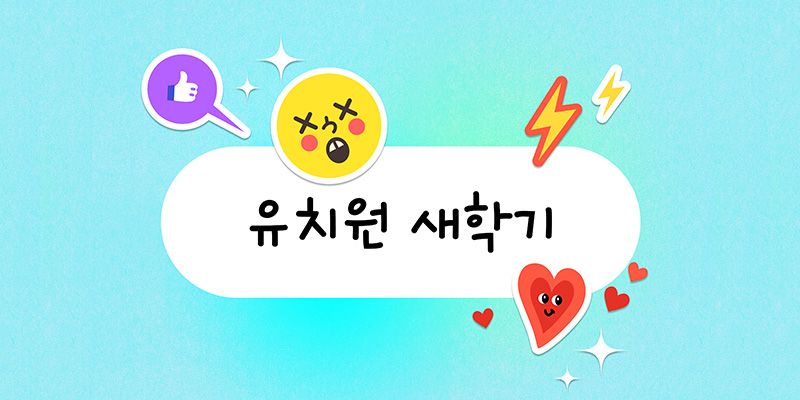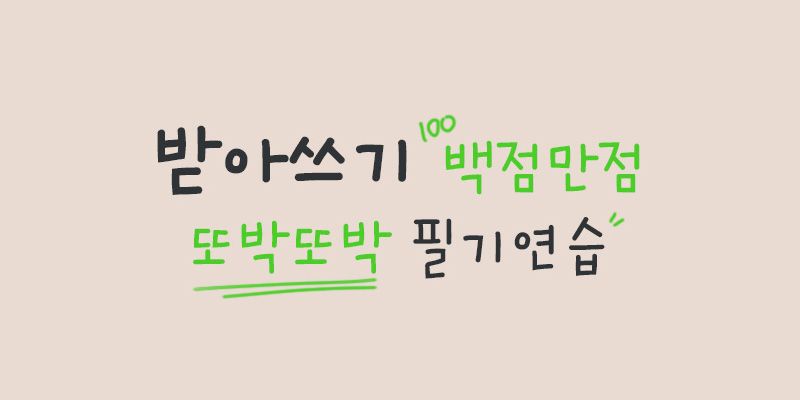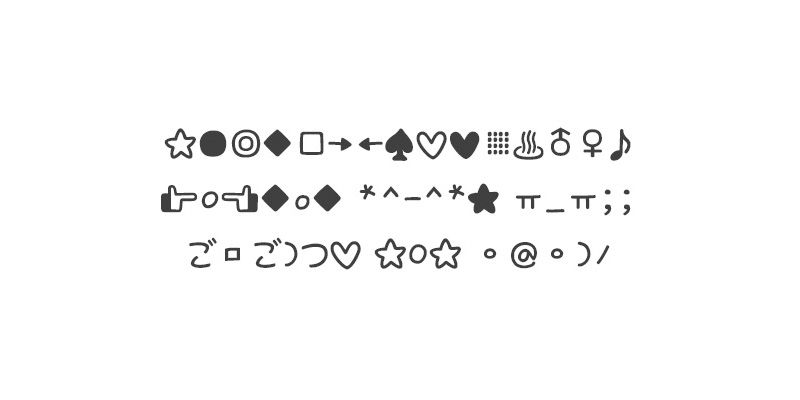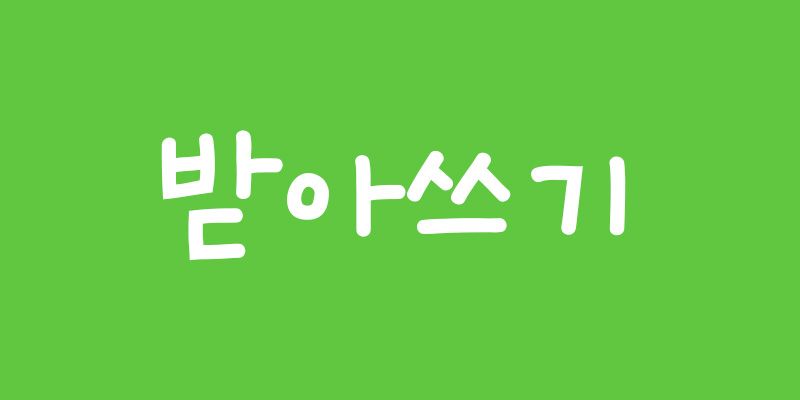
RixDictation is featured with the straight and clear handwritings of schoolchild. It brings up the cute image of a child trying hard to write precisely.